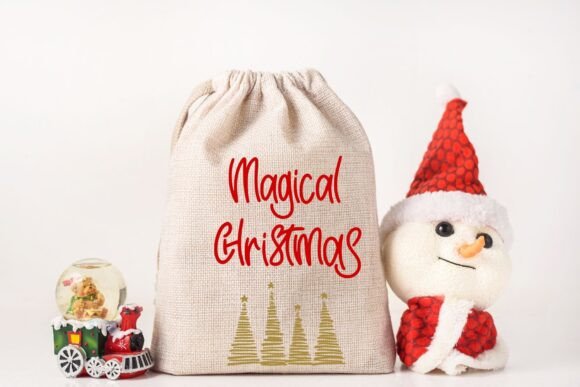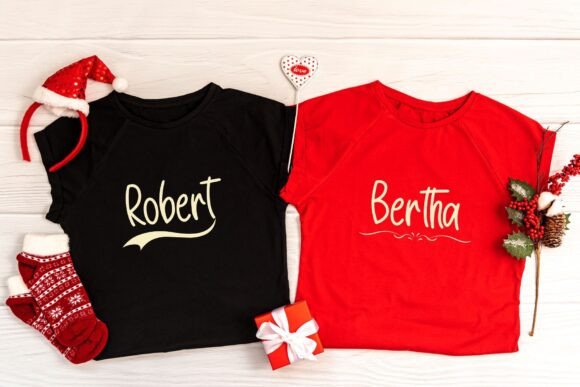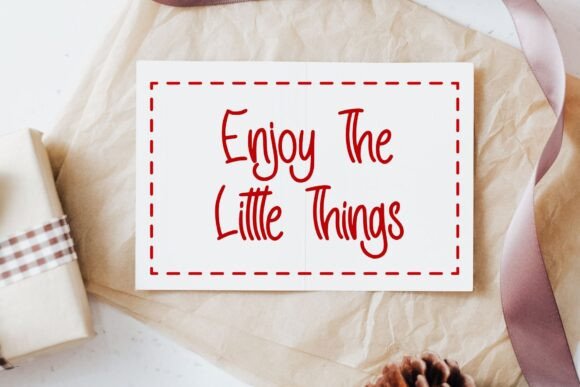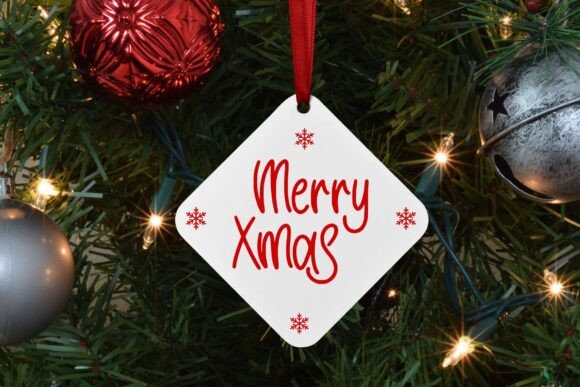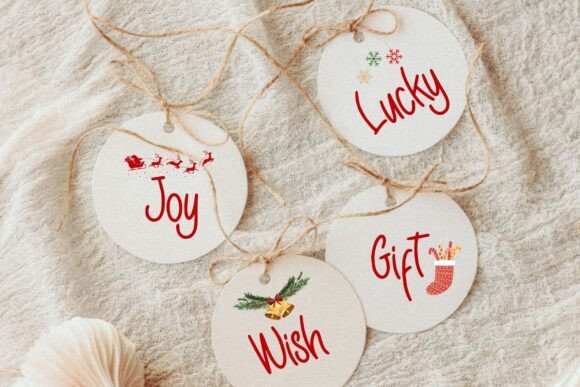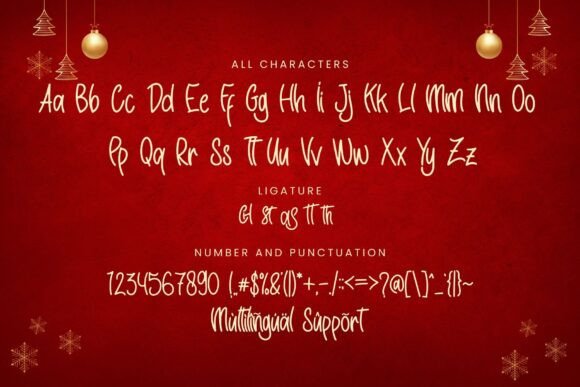
Deck the Halls with Christmas Design Font: The Ultimate Holiday Typography
As the holiday season approaches, designers and crafters are on the lookout for the perfect typography to add a touch of festive cheer to their projects. Look no further than Christmas Design Font, a beautiful and elegant handwritten font that’s specifically designed to capture the magic of the holiday season. In this article, we’ll dive into the world of Christmas Design Font, exploring its features, benefits, and uses, as well as provide tips and inspiration for incorporating it into your holiday designs.
What is Christmas Design Font?
Christmas Design Font is a festive handwritten font that’s perfect for holiday-themed projects. Its elegant strokes and cheerful style make it an ideal choice for creating greeting cards, decorations, and invitations that are sure to spread holiday cheer. With its warm and joyful touch, this font is sure to become a staple in your design library.
Key Features of Christmas Design Font
- Elegant Strokes: Christmas Design Font features elegant strokes that add a touch of sophistication to your designs.
- Cheerful Style: The font’s cheerful style is perfect for creating festive and fun holiday designs.
- Handwritten: The handwritten nature of the font gives it a personal and unique touch.
- Versatile: Christmas Design Font is versatile and can be used for a variety of projects, from greeting cards to decorations and invitations.
Benefits of Using Christmas Design Font
So, why choose Christmas Design Font for your holiday projects? Here are just a few benefits:
- Adds a Personal Touch: The handwritten nature of the font adds a personal touch to your designs, making them more relatable and engaging.
- Evokes Emotion: The cheerful and elegant style of the font is sure to evoke feelings of joy and festivity.
- Easy to Use: Christmas Design Font is easy to use and can be incorporated into a variety of design software.
- Unique: The font’s unique style ensures that your designs will stand out from the crowd.
Using Christmas Design Font in Your Holiday Designs
So, how can you use Christmas Design Font in your holiday designs? Here are a few ideas to get you started:
- Greeting Cards: Use Christmas Design Font to create beautiful and personalized greeting cards for your loved ones.
- Decorations: Add a touch of festive cheer to your holiday decorations with Christmas Design Font.
- Invitations: Create elegant and festive invitations for your holiday parties and events.
- Social Media: Use Christmas Design Font to add a touch of holiday cheer to your social media posts and stories.
Tips for Working with Christmas Design Font
Here are a few tips for working with Christmas Design Font:
- Experiment with Colors: Try pairing Christmas Design Font with different colors to create a unique and festive look.
- Play with Sizes: Experiment with different font sizes to add visual interest to your designs.
- Add Graphics: Consider adding graphics and illustrations to your designs to make them more engaging.
- Keep it Simple: Don’t be afraid to keep your designs simple and elegant – sometimes less is more.
Christmas Design Font is a beautiful and elegant handwritten font that’s perfect for holiday-themed projects. With its elegant strokes and cheerful style, it’s sure to add a warm and joyful touch to your designs. Whether you’re a designer or crafter, Christmas Design Font is a must-have for your holiday design library. So why wait? Download Christmas Design Font today and start creating your own festive and fun holiday designs!